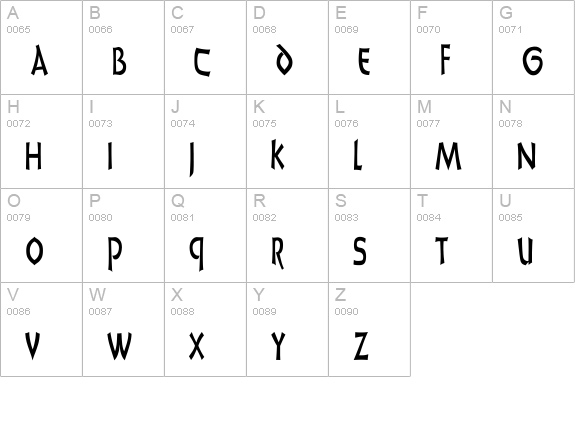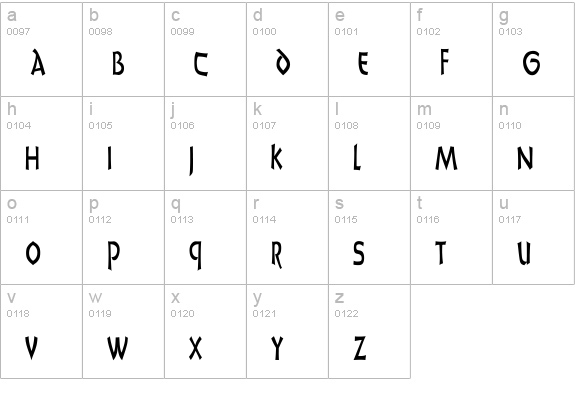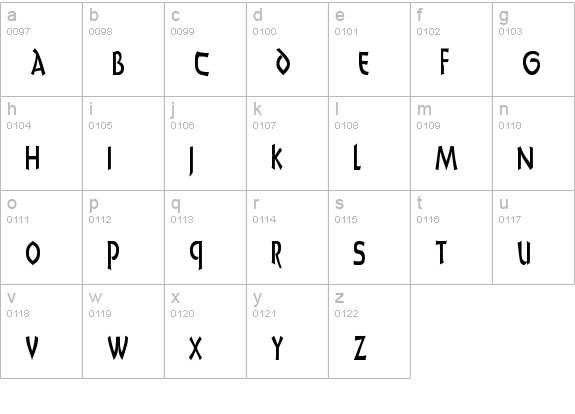
UnciaDis Cn font is a captivating and versatile typeface that exudes elegance and sophistication. Its intricate and delicate design makes it perfect for adding a touch of class to various design projects. With its slim and slender appearance, this font is ideal for creating eye-catching headlines, logos, and branding materials. This font boasts a unique blend of traditional and modern elements, resulting in a truly timeless aesthetic. Each letter is meticulously crafted, with exquisite attention to detail, ensuring a flawless and polished look. UnciaDis Cn font is suitable for both print and digital applications, making it a versatile choice for designers and creatives alike. What makes UnciaDis Cn font even more remarkable is that it is available for free download at FontsMarket.com. This means that you can easily access and utilize this stunning font for your personal and commercial projects without any cost. Whether you are a professional designer or an aspiring artist, this font offers endless possibilities and creative freedom to bring your vision to life. Download UnciaDis Cn font today from FontsMarket.com and experience the beauty and elegance it brings to your designs. With its timeless appeal and availability at no charge, this font is a must-have for any design enthusiast. Embrace the sophistication and versatility of UnciaDis Cn font and let your creativity flourish.